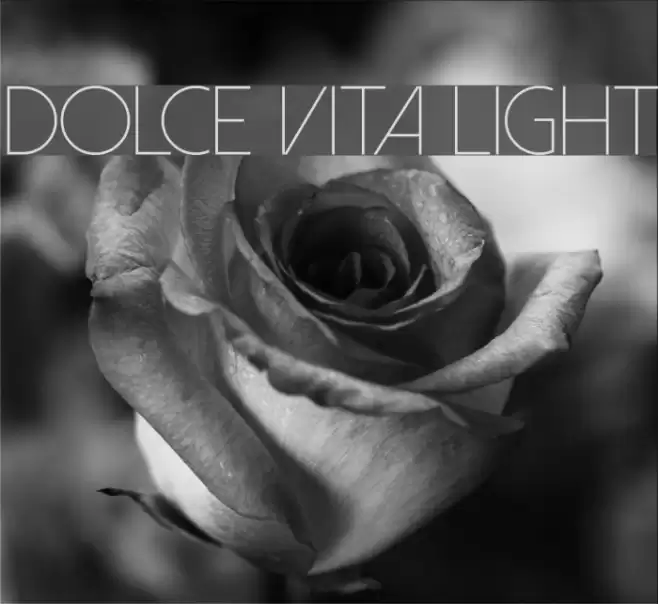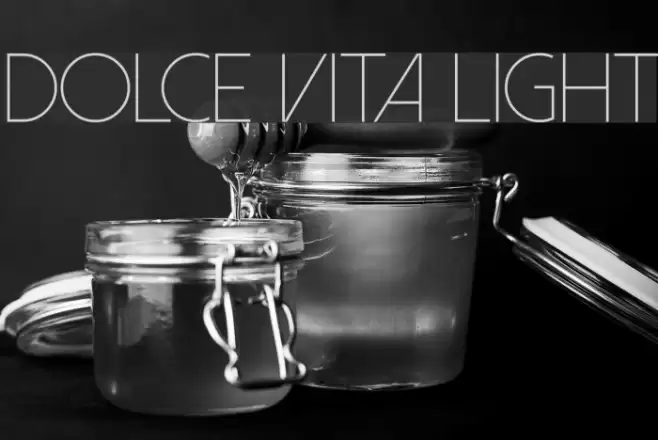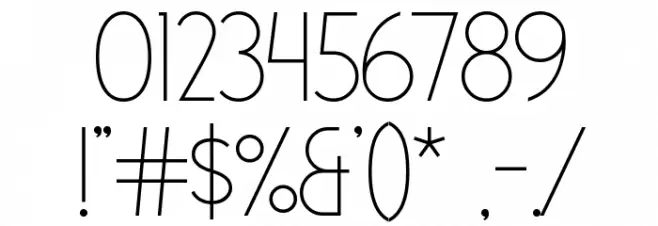
Dolce Vita Light Font
Dolce Vita Light Description
This font features a sleek, geometric design with clean lines and a modern aesthetic. The uppercase letters are sharply defined, with a consistent stroke width that gives a sense of uniformity and balance. The lowercase letters maintain this geometric precision, offering a harmonious flow between characters. Numbers are equally well-crafted, ensuring readability and style. Special characters are thoughtfully designed to complement the overall look, making this font versatile for various applications. Its minimalist approach and elegant form make it suitable for contemporary design projects.
A sleek, geometric font with clean lines and a modern aesthetic from Uncategorized fonts.
- Proposed Projects: Ideal for branding, editorial design, modern websites, and minimalist posters.
- Use Case: Headlines, Logos, Branding